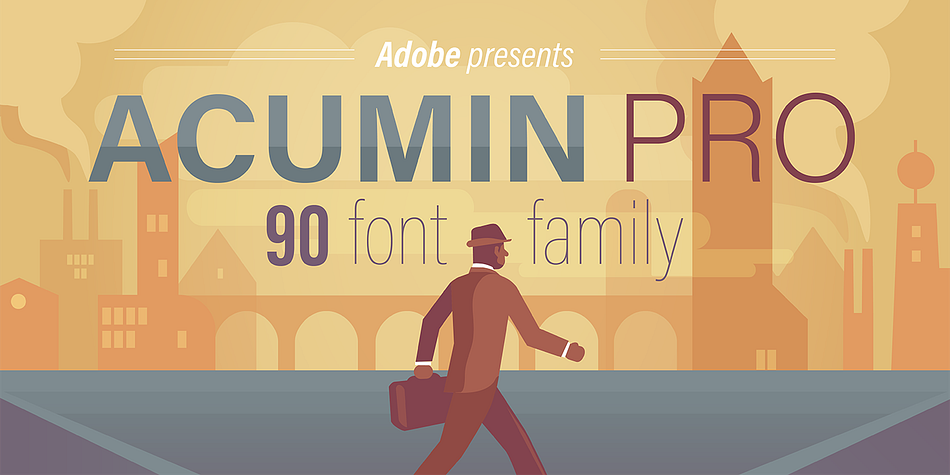
Acumin Pro
Designed by Robert Slimbach, Acumin Pro is a sans serif font family. This typeface has ninety styles and was published by Adobe.
Acumin is a versatile sans-serif typeface family that is equally at home in text and headline settings. It’s especially suitable for use in information design and anywhere a clean, modern aesthetic is needed. This original design by Adobe’s principal designer Robert Slimbach brings a subtle balance to the architectural and modular form central to the neo-grotesque tradition.